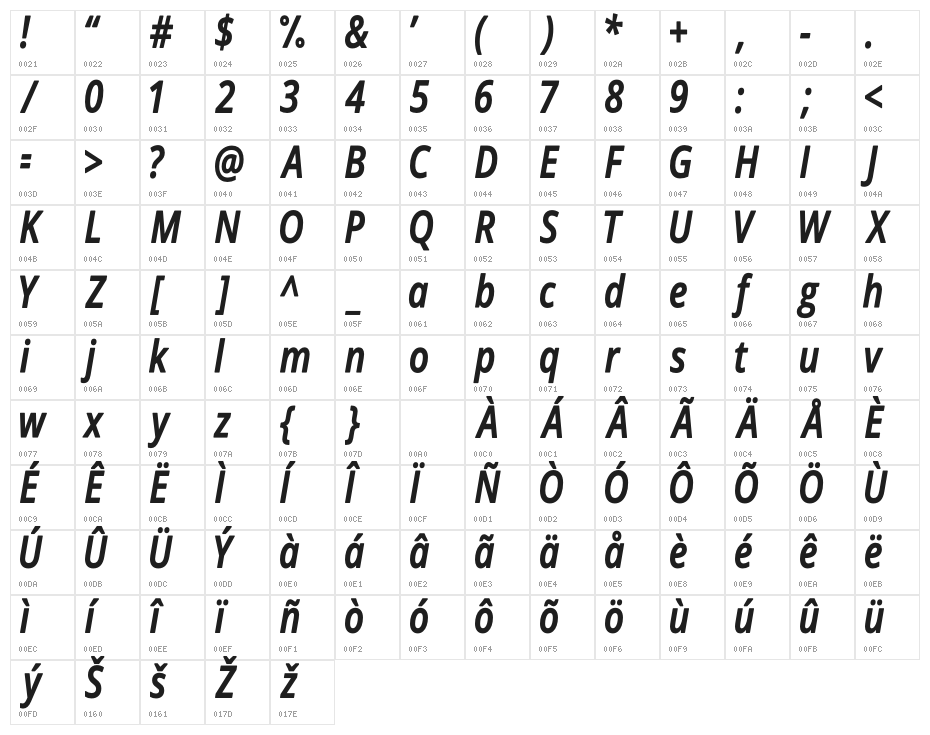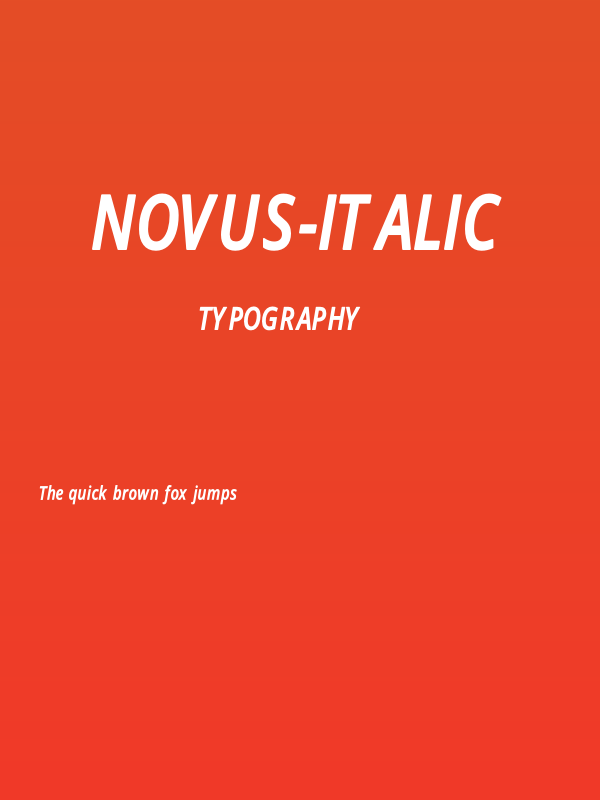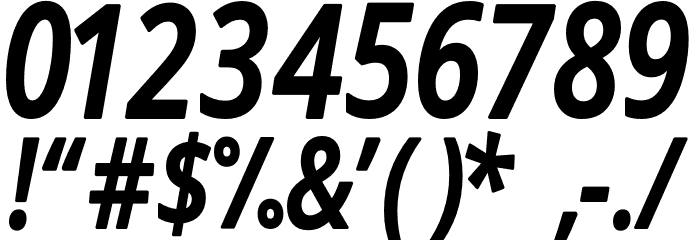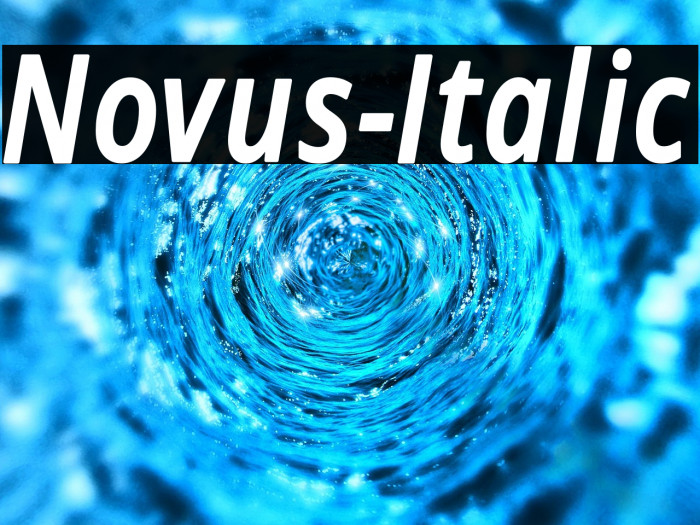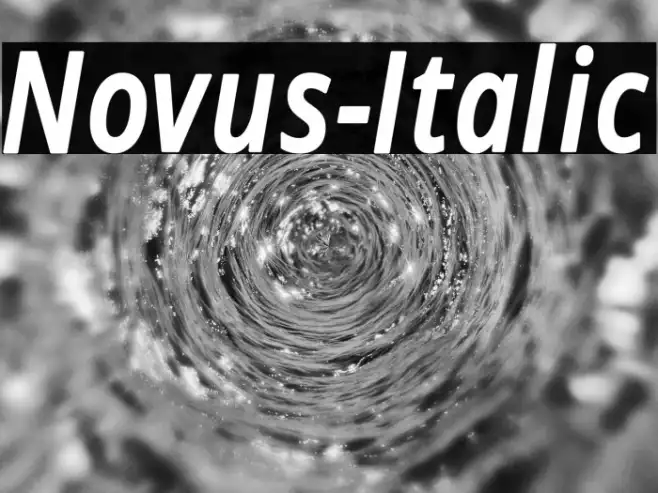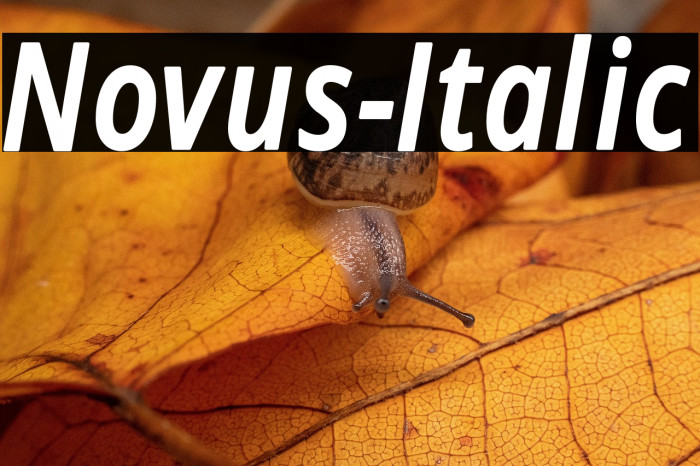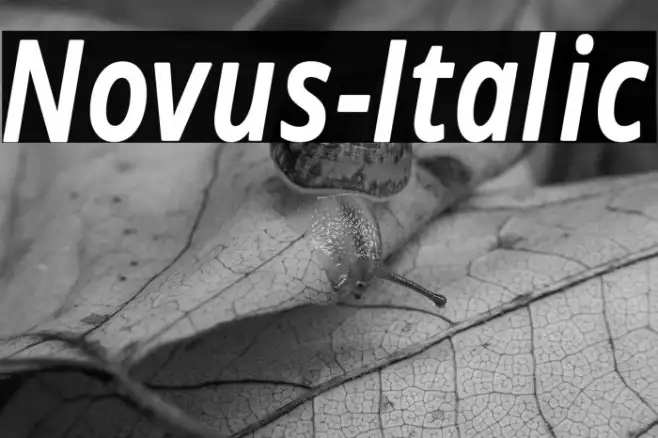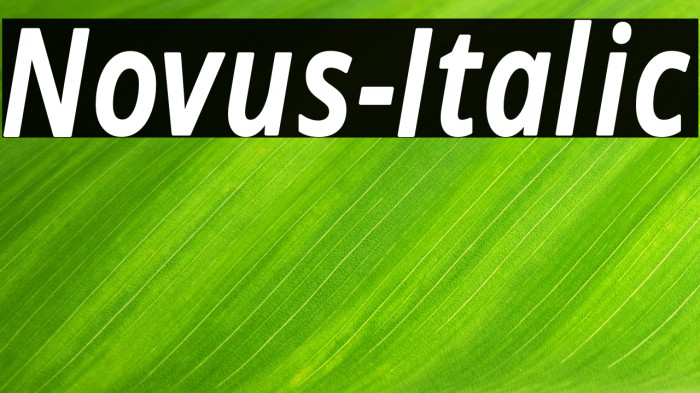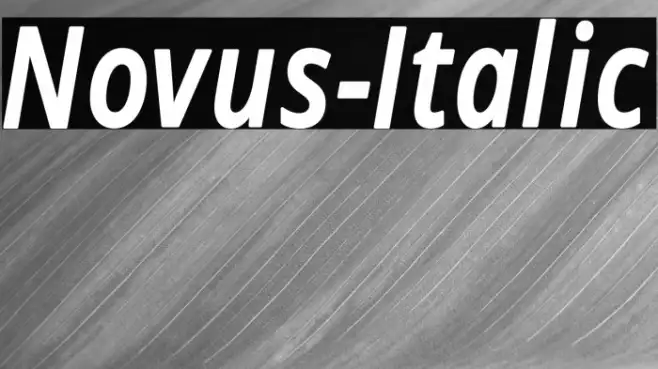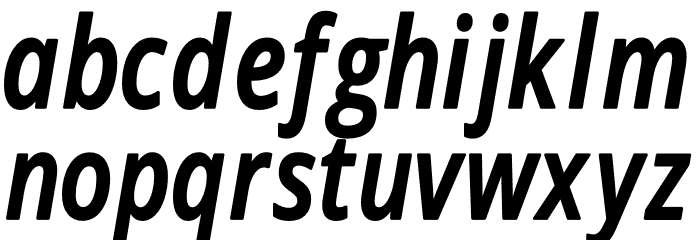
Novus-Italic Font
Novus-Italic Description
This font features a sleek and modern italic style with a slight forward slant, giving it a dynamic and energetic appearance. The characters are well-proportioned with a consistent stroke width, offering a clean and professional look. The uppercase letters are bold and assertive, while the lowercase letters maintain a smooth and flowing form. Numerals are clear and easily distinguishable, making them suitable for various applications. The special characters are designed to complement the overall style, ensuring versatility in usage.